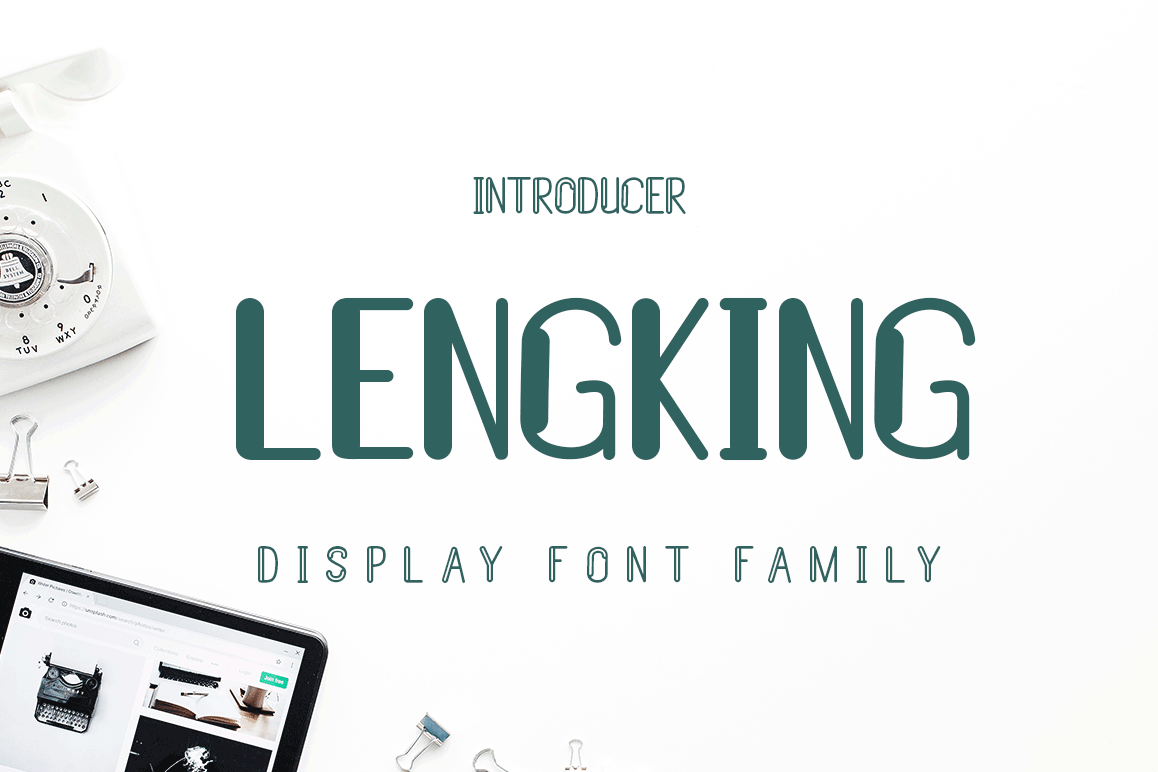
LENGKING FONT FAMILY
LENGKING
LENGKING DIS SLANT
LENGKING SLANT
LENGKING DIS
LENGKING FONT FAMILY is new Display font has a sleek typeface, font is very simple and easy to manipulate: logo, slogan and made in advertising messages.